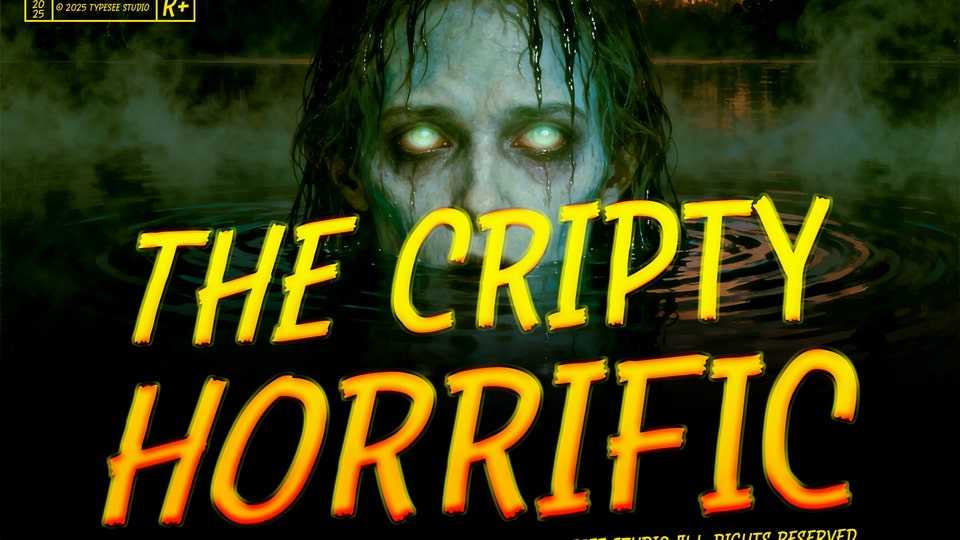
Download The Cripty Horrific font, a bold horror display typeface inspired by monsters, ghosts, and the undead. Its toxic energy and jagged strokes make it perfect for Halloween posters, zombie films, and eerie branding.
Designer: Typesee Typefoundry